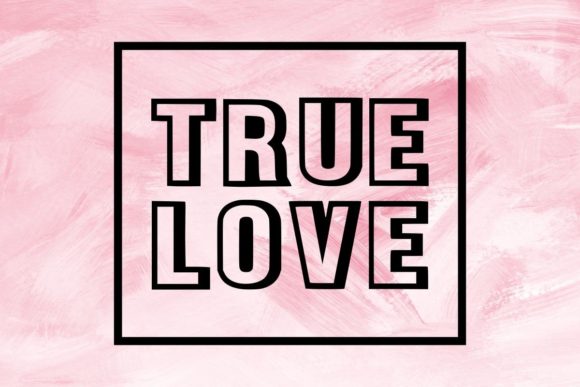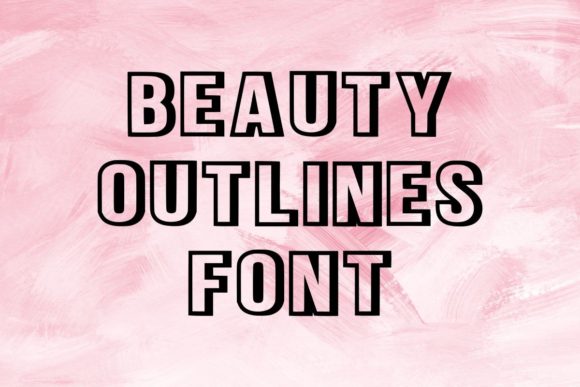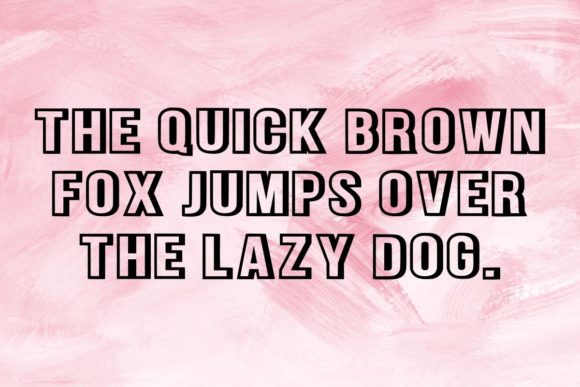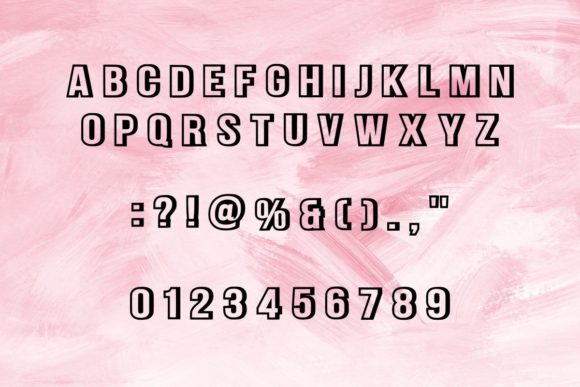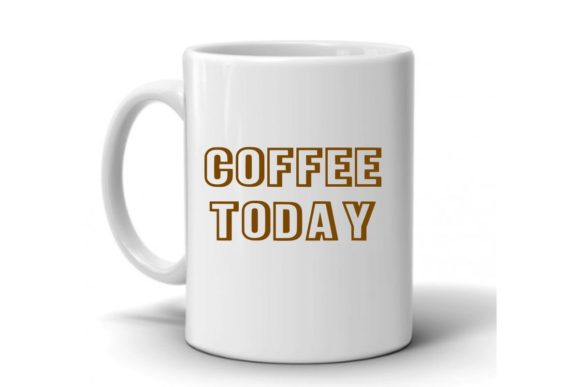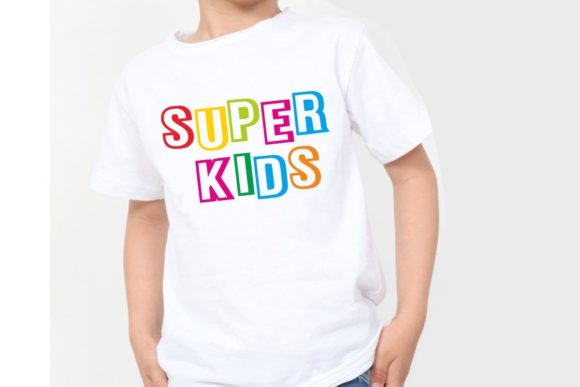
Introduction to Contour Outlines Font
Contour Outlines is an assertive and adaptable display font.
It is easy-to-read and conveys impeccable friendliness Whether youโ€™re using it for crafts, digital design, presentations, or making greeting cards, this font has the potential to become your favorite go-to font.
Key Features of Contour Outlines Font